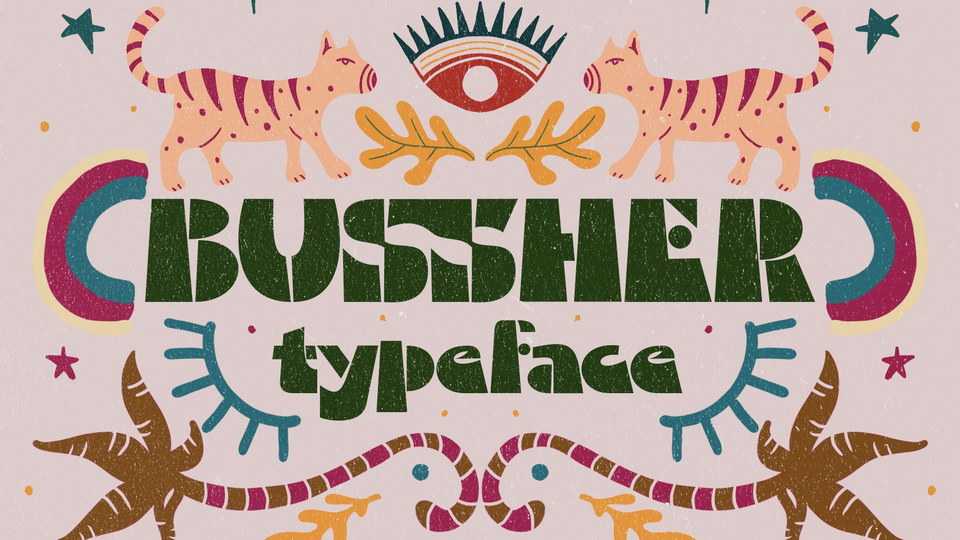
Download Bussher font, a bold display typeface, inspired by the 70s. It’s funny, groovy, classic, not serious but has aesthetic and unique value, besides that the Bussher is very easy to remember and becomes the image of a design.